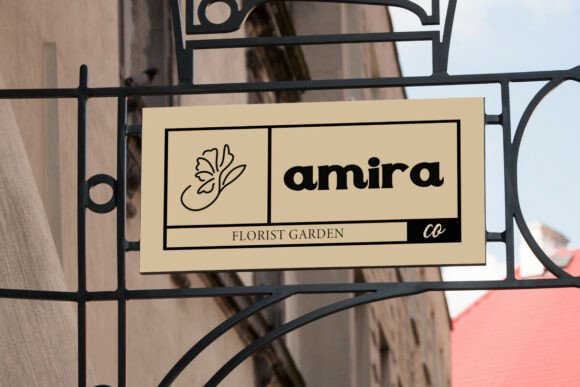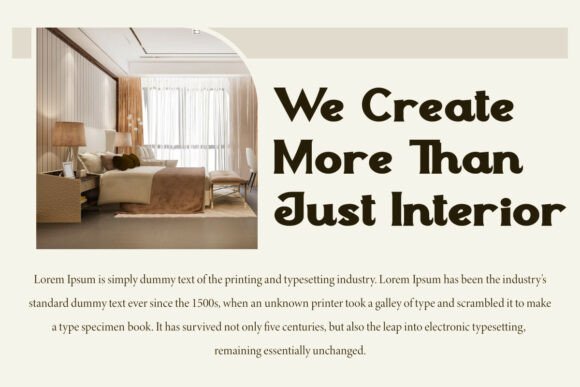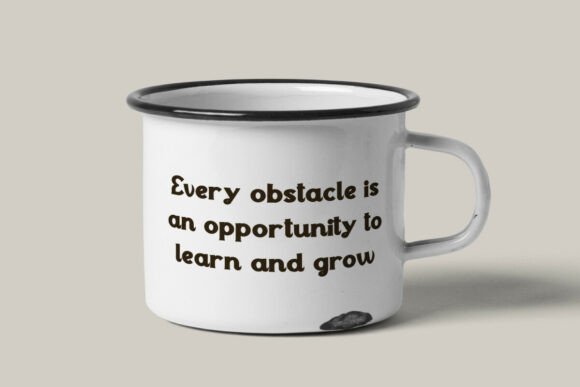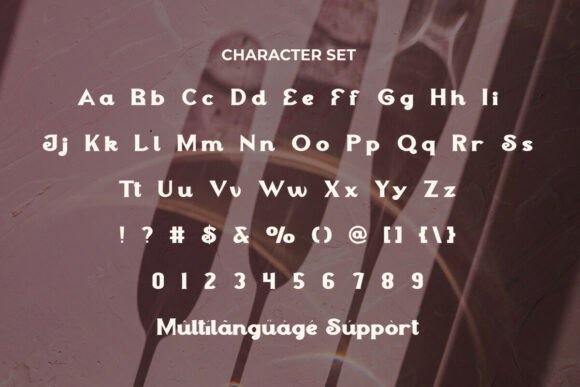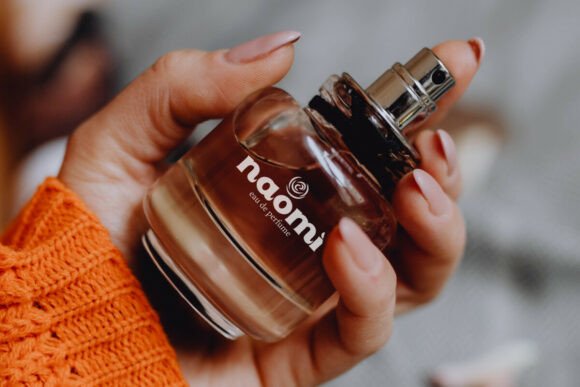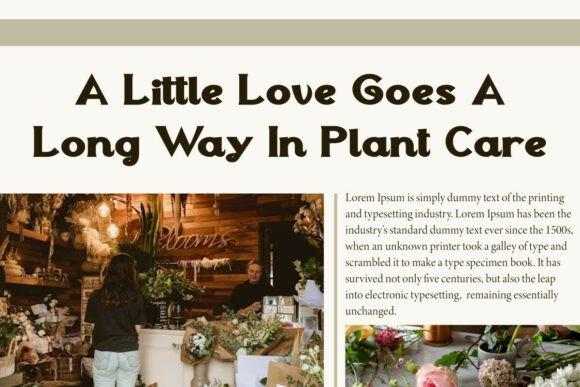
Introduction to Glossy Edition Font
Glossy Edition font is a sophisticated serif that masterfully blends retro-chic aesthetics with modern elegance.
Featuring unique, liquid-like curves and stylized terminals, this Glossy Edition typeface brings a high-fashion, boutique feel to any project It is an exceptional choice for luxury branding, editorial layouts, and premium invitation suites where a touch of “glamour” is required.
Key Features of Glossy Edition Font
Why Choose Glossy Edition Font?
Glossy Edition Font offers exceptional quality and versatility, making it a valuable addition to your design toolkit. Whether you’re creating for personal projects or commercial use, Glossy Edition Font delivers professional results.